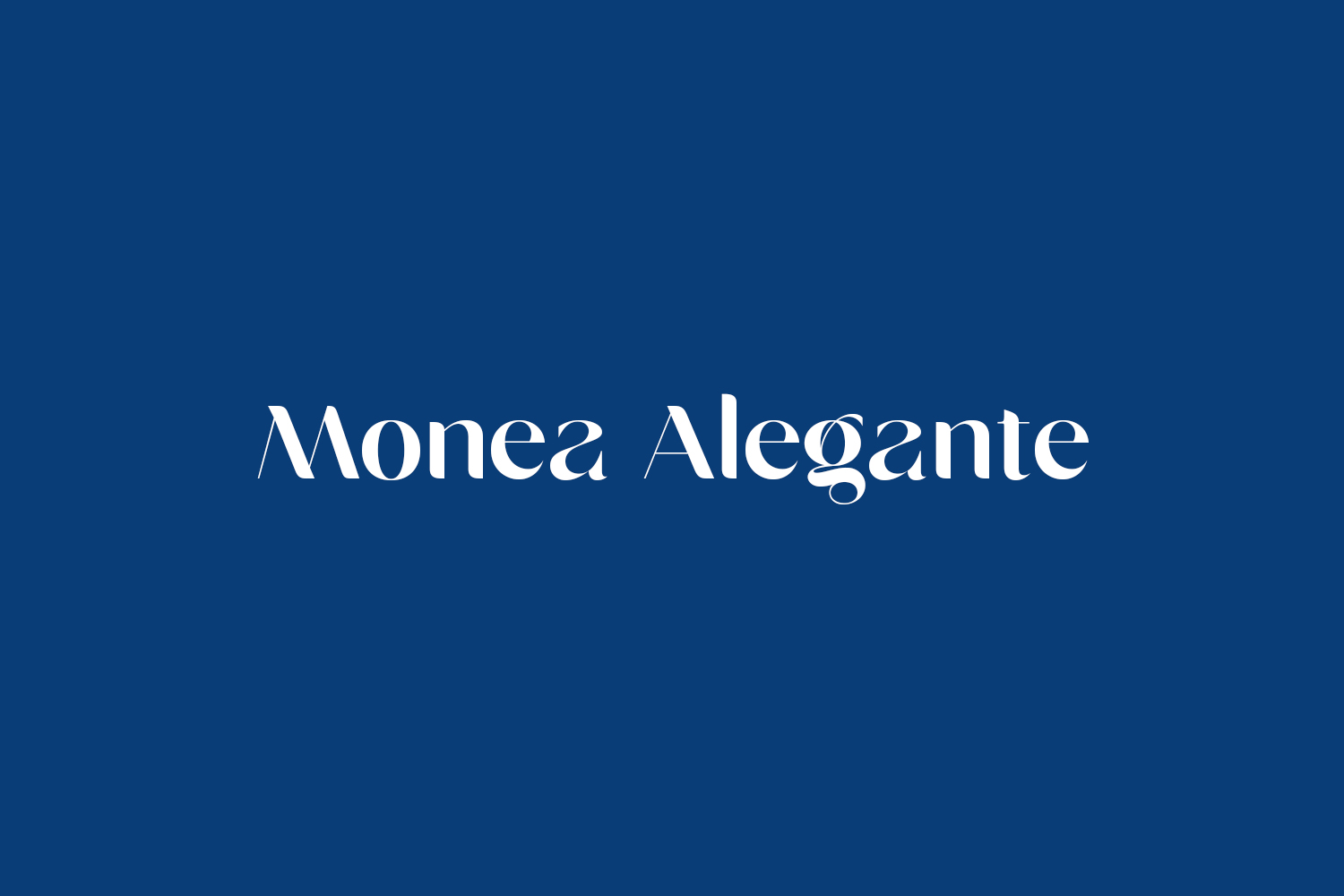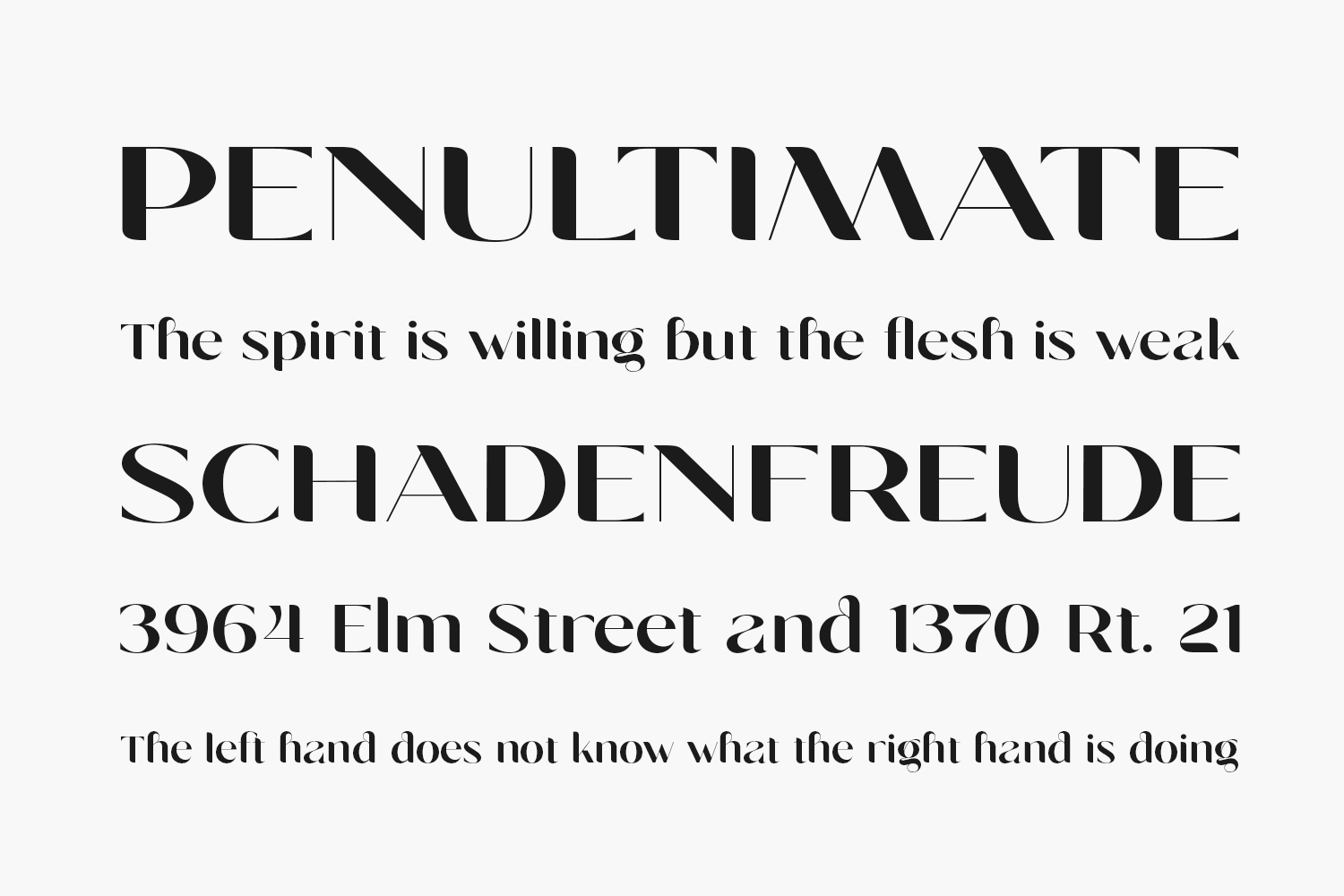
Monea Alegante is an elegant distinct and imposing display font. It can be utilized for various designs, both formal and informal. Use your intuition and imagination, and build dazzling creations with Monea Alegante. Monea Alegante Free Font was designed by Sansakerta and is free for personal use only. Please purchase the full version for commercial use.